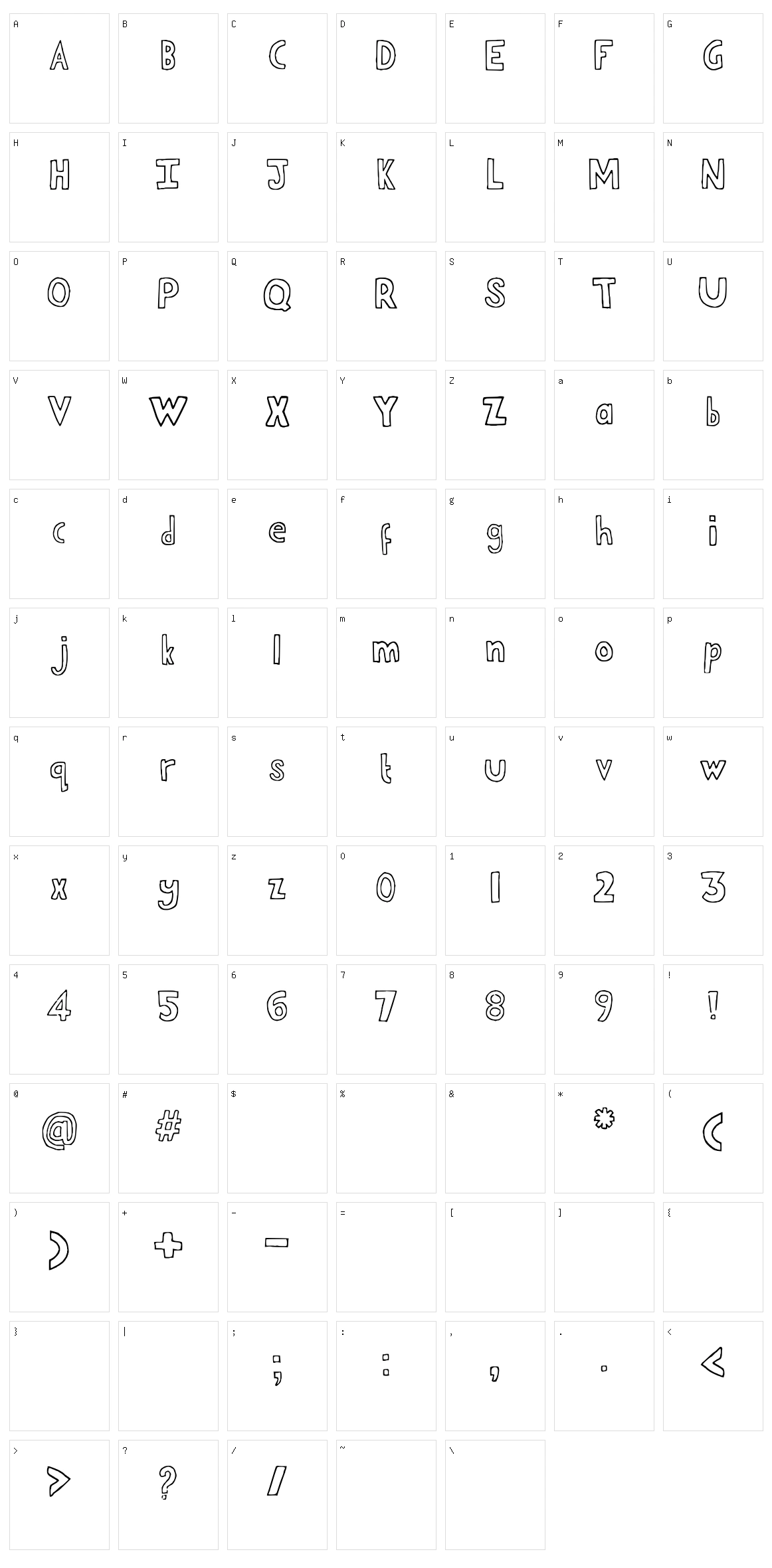
The free font Heasafel is carefully designed by Ellis Hampson-Laven, showcasing a thoughtful balance of creativity and usability and falls under the Cartoon font style. When you download the ZIP file, it contains only 22.96 KB of font files, making it lightweight and quick to download. Please review the license details below to understand permitted usage and distribution rights. If license information is not available, we recommend using this font for personal projects only or contacting the author directly for commercial usage permissions.